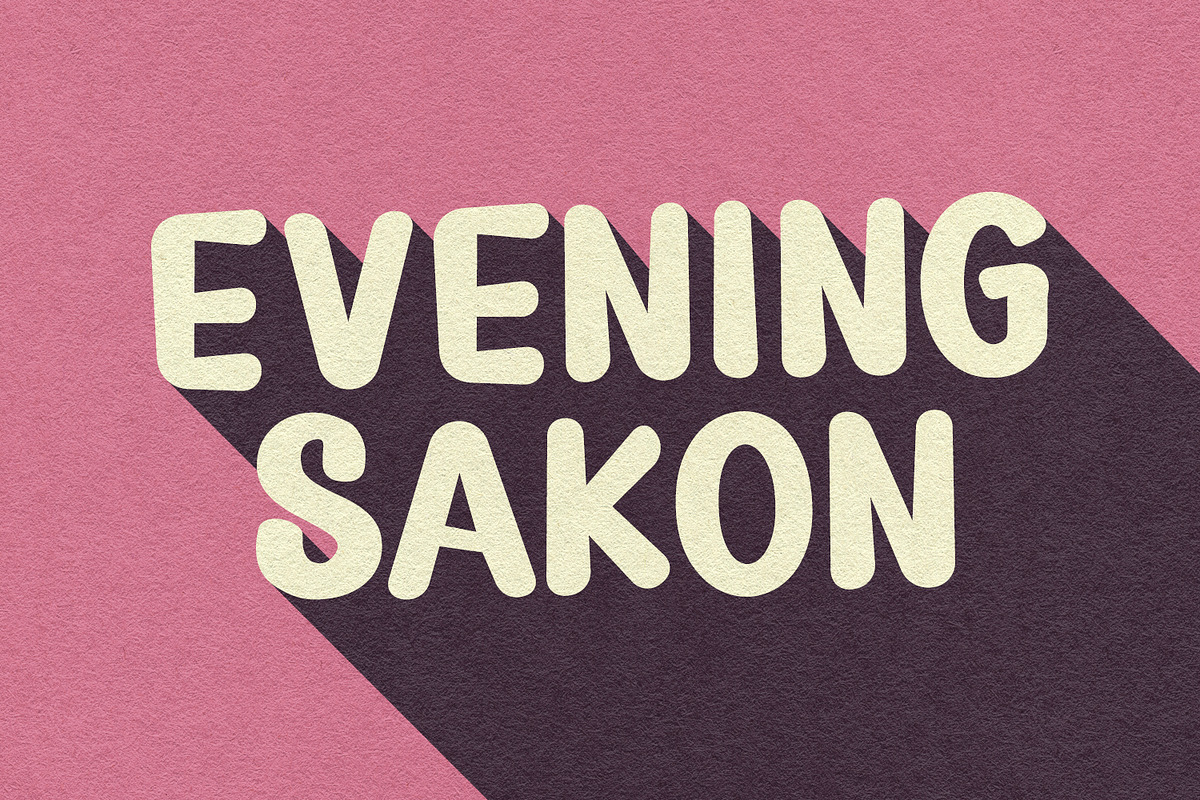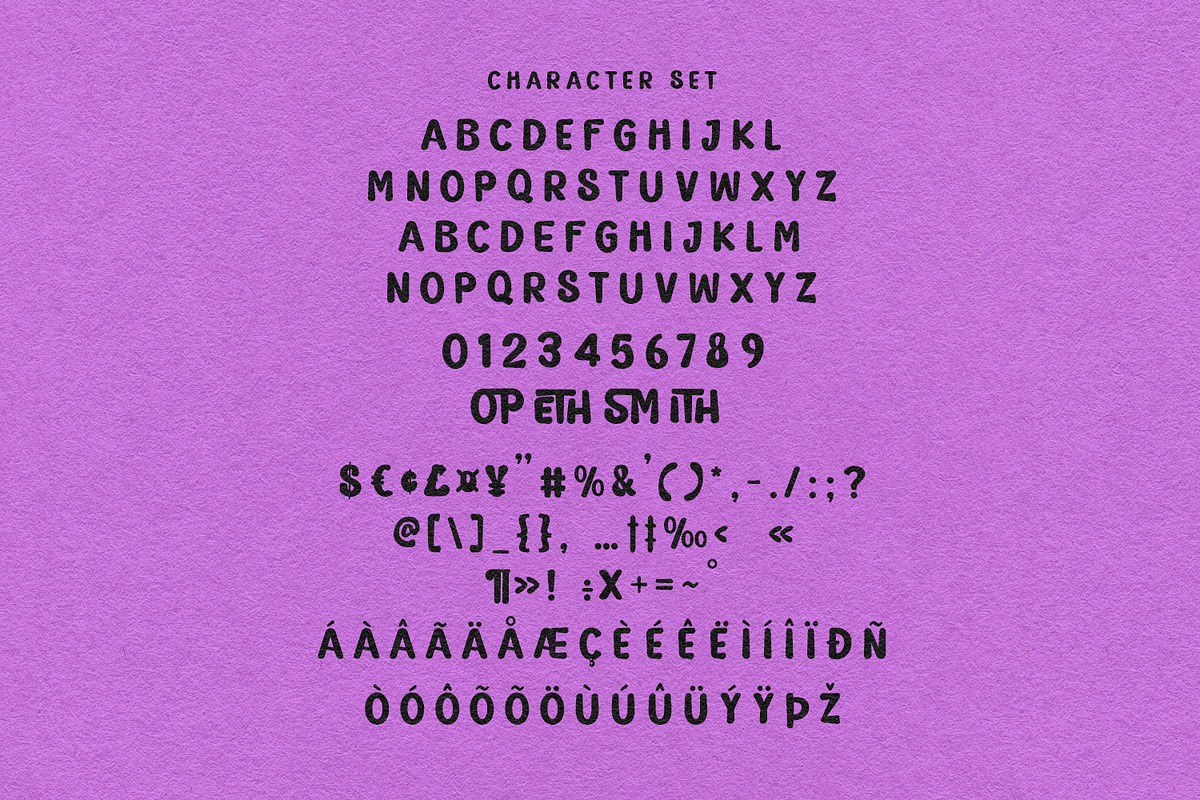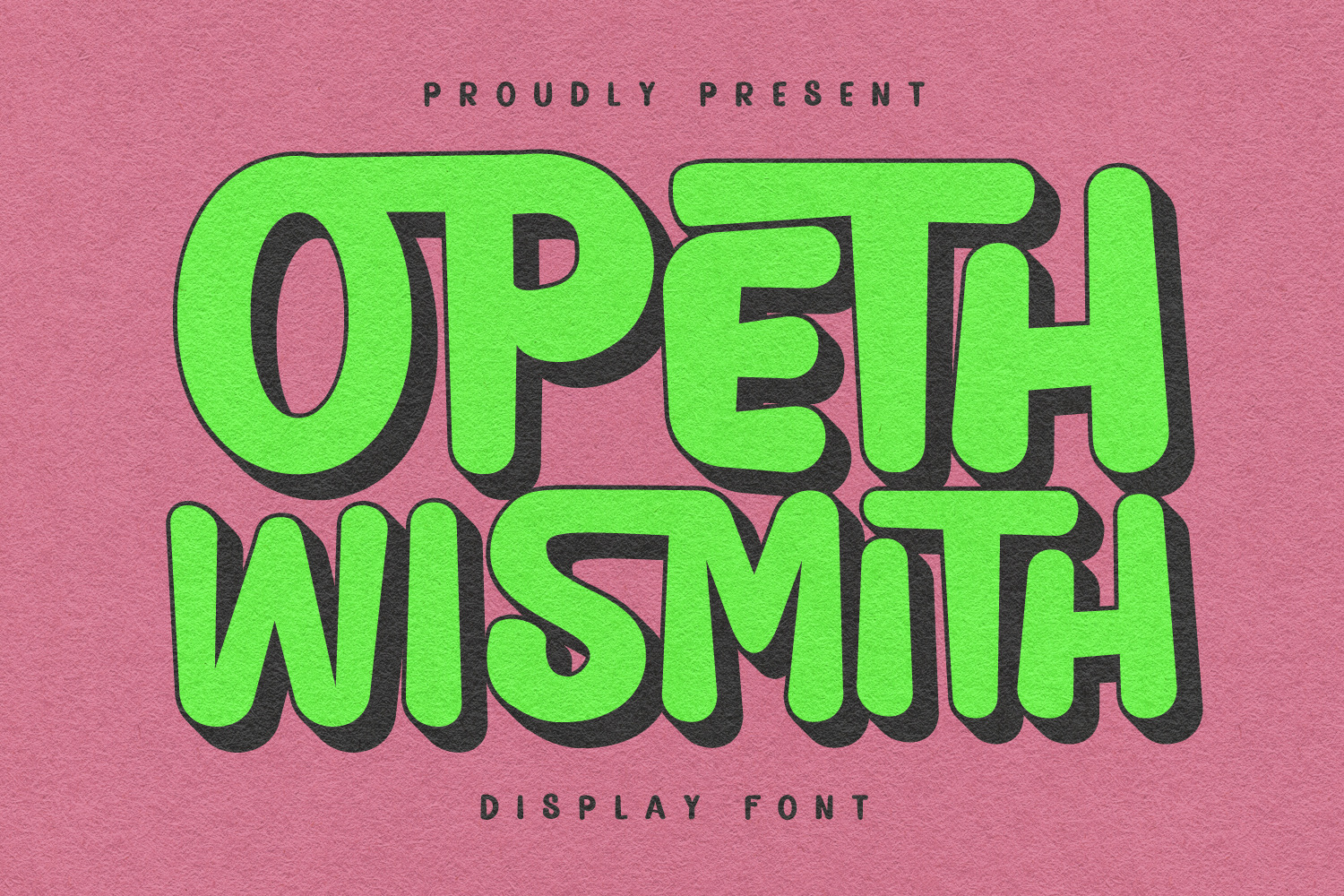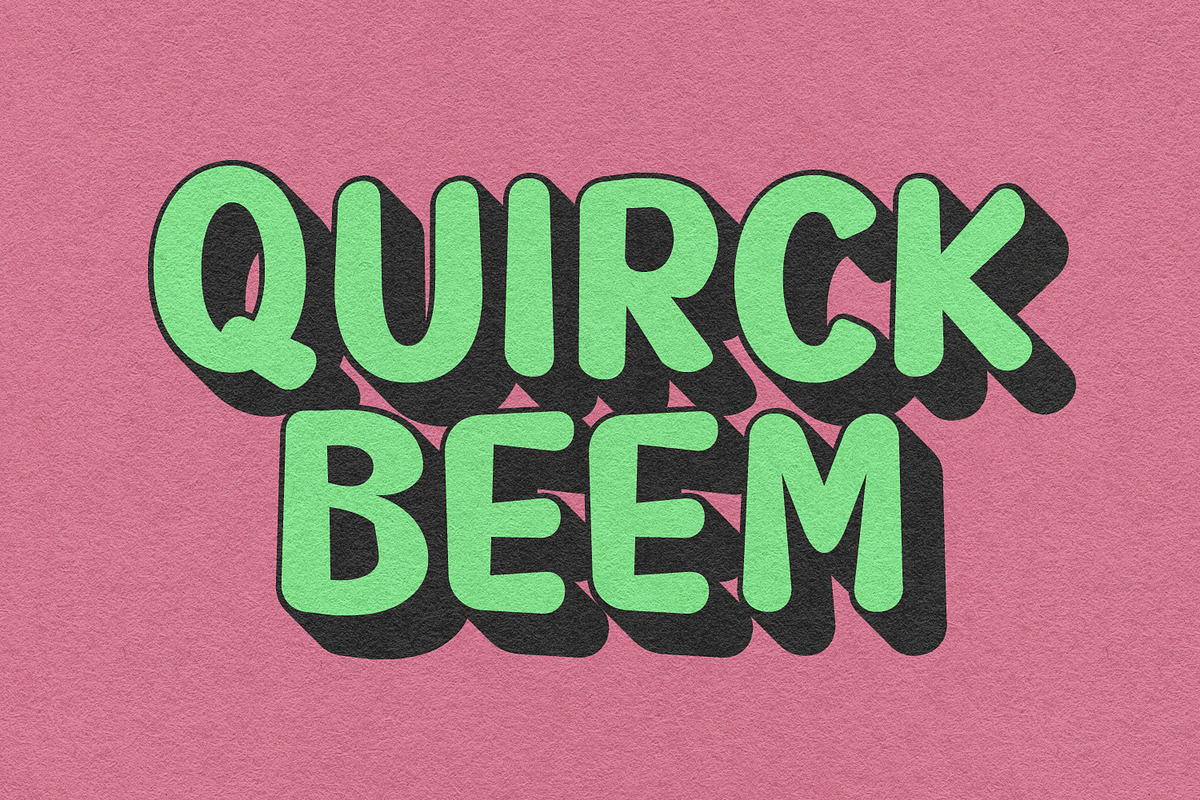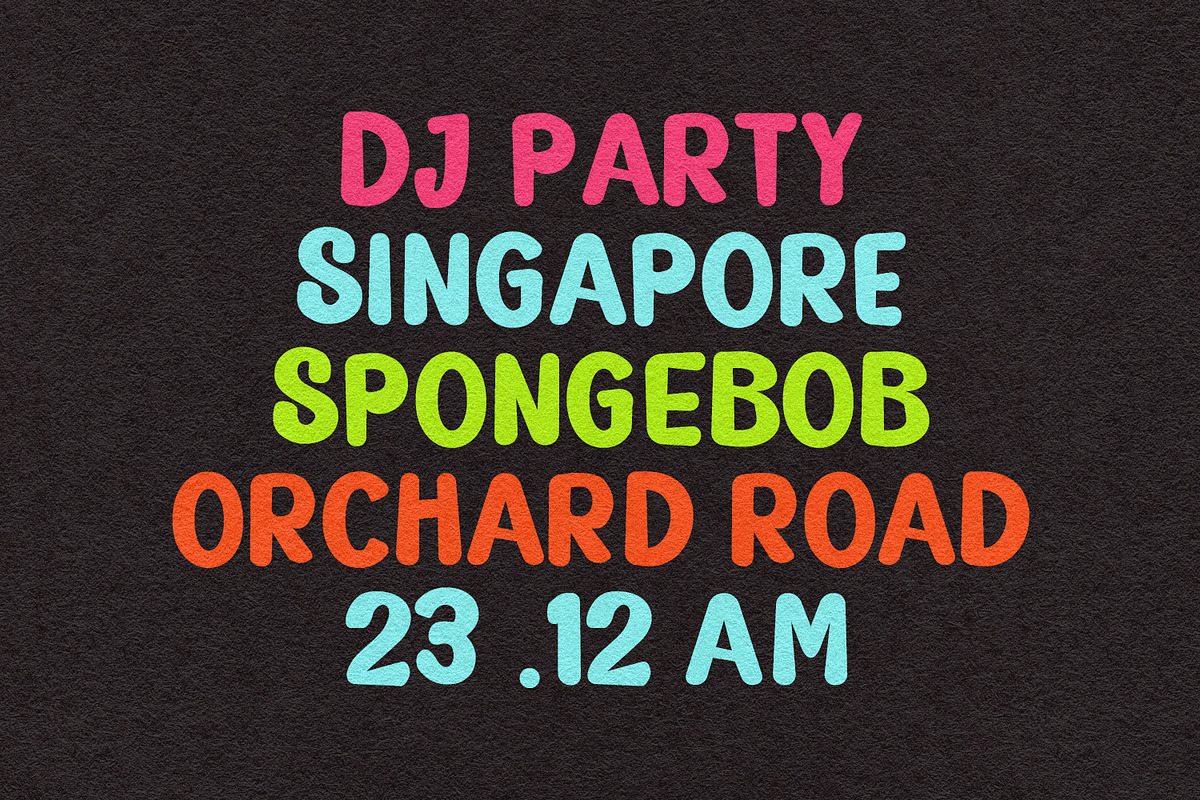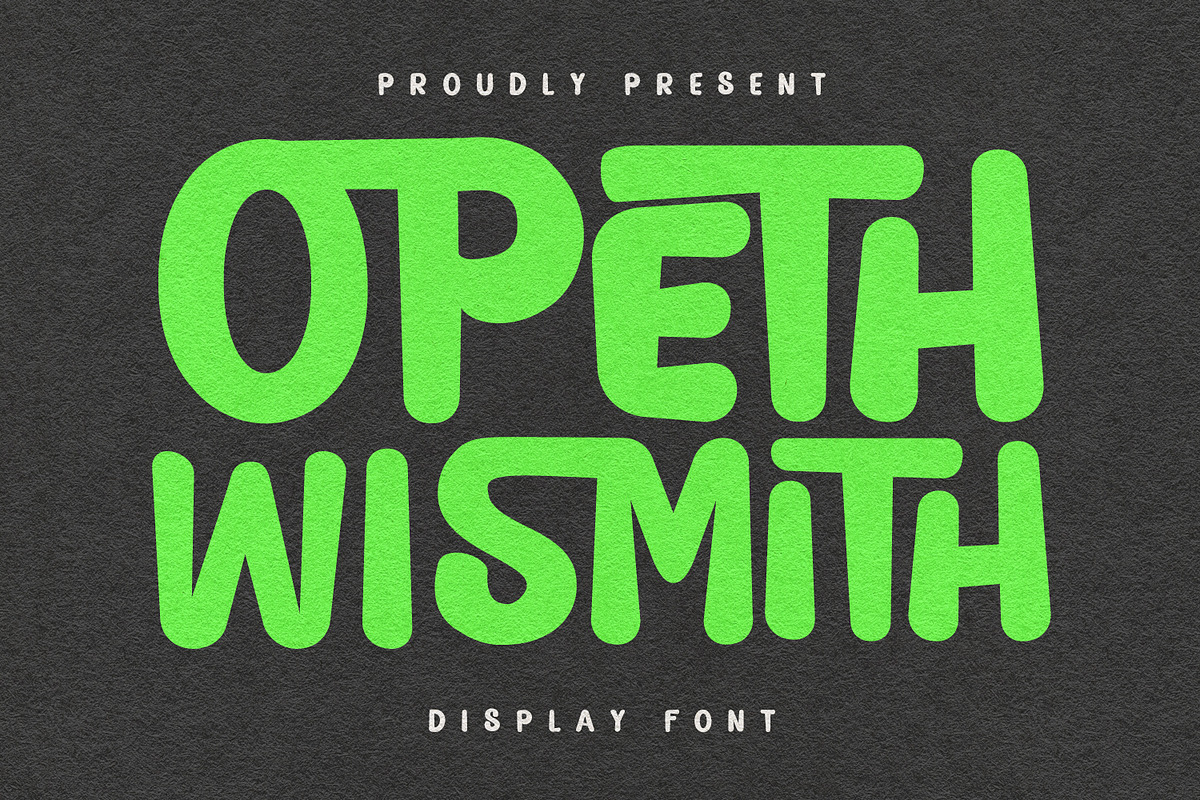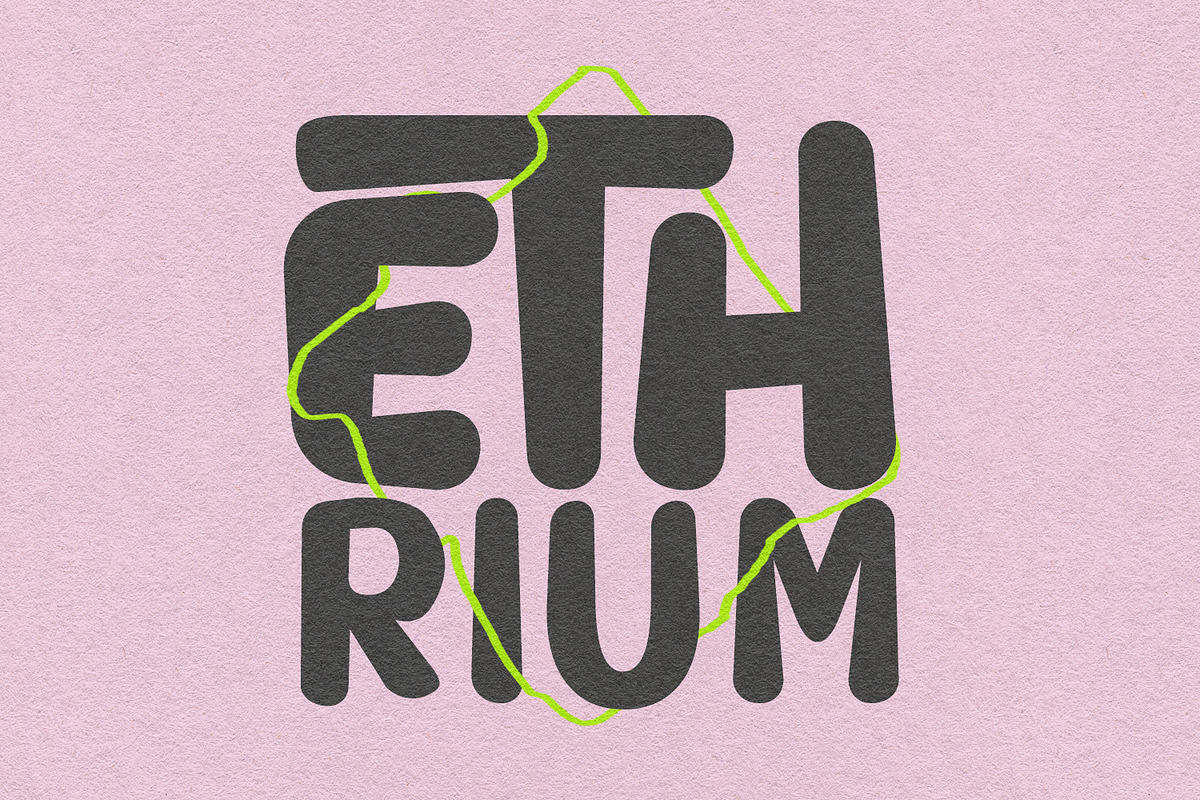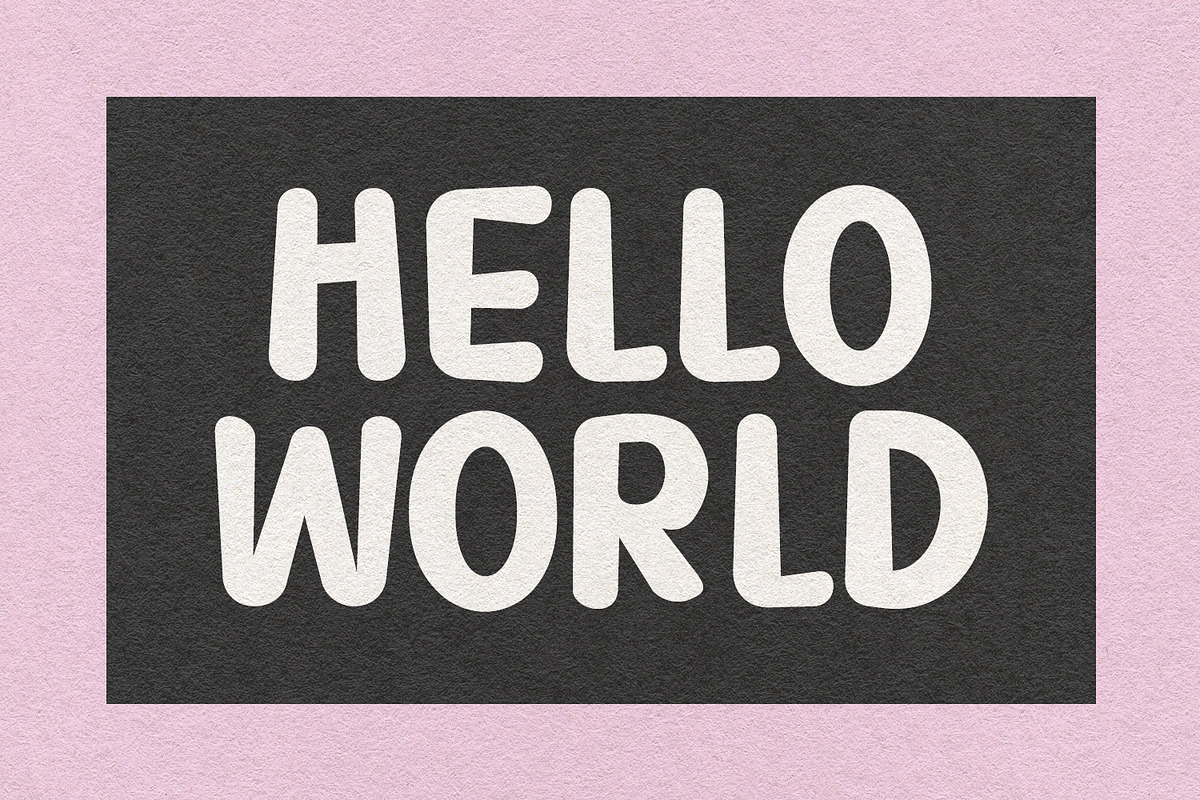
Opeth Wismith Display Font
Opeth Wismith is a handwritten sans display font. With smooth and bold stroke, fun character with a ligatures. To give you an extra creative work Opeth Wismith font support multilingual more than 100+ language. This font is good for logo design, Social media, Movie Titles, Books Titles, a short text even a long text letter and good for your secondary text font with sans or serif. Make a stunning work with Opeth Wismith font.